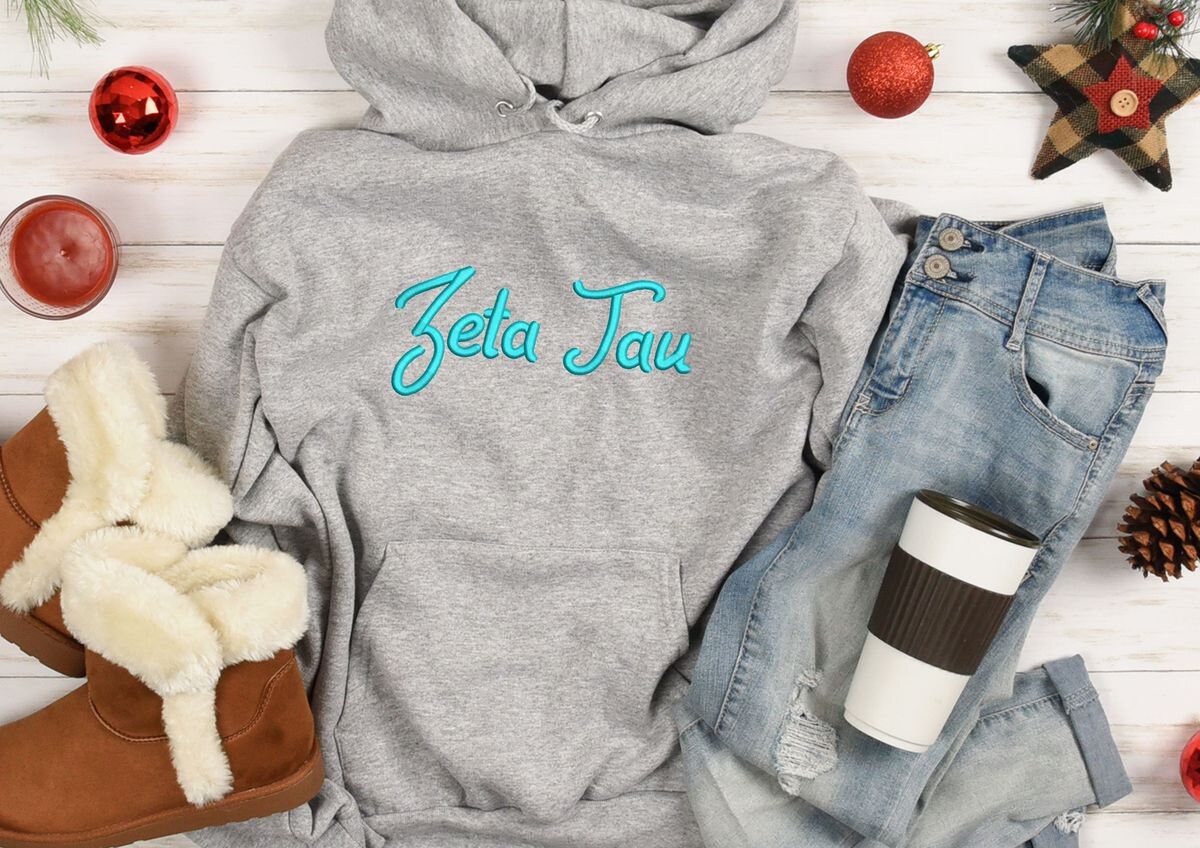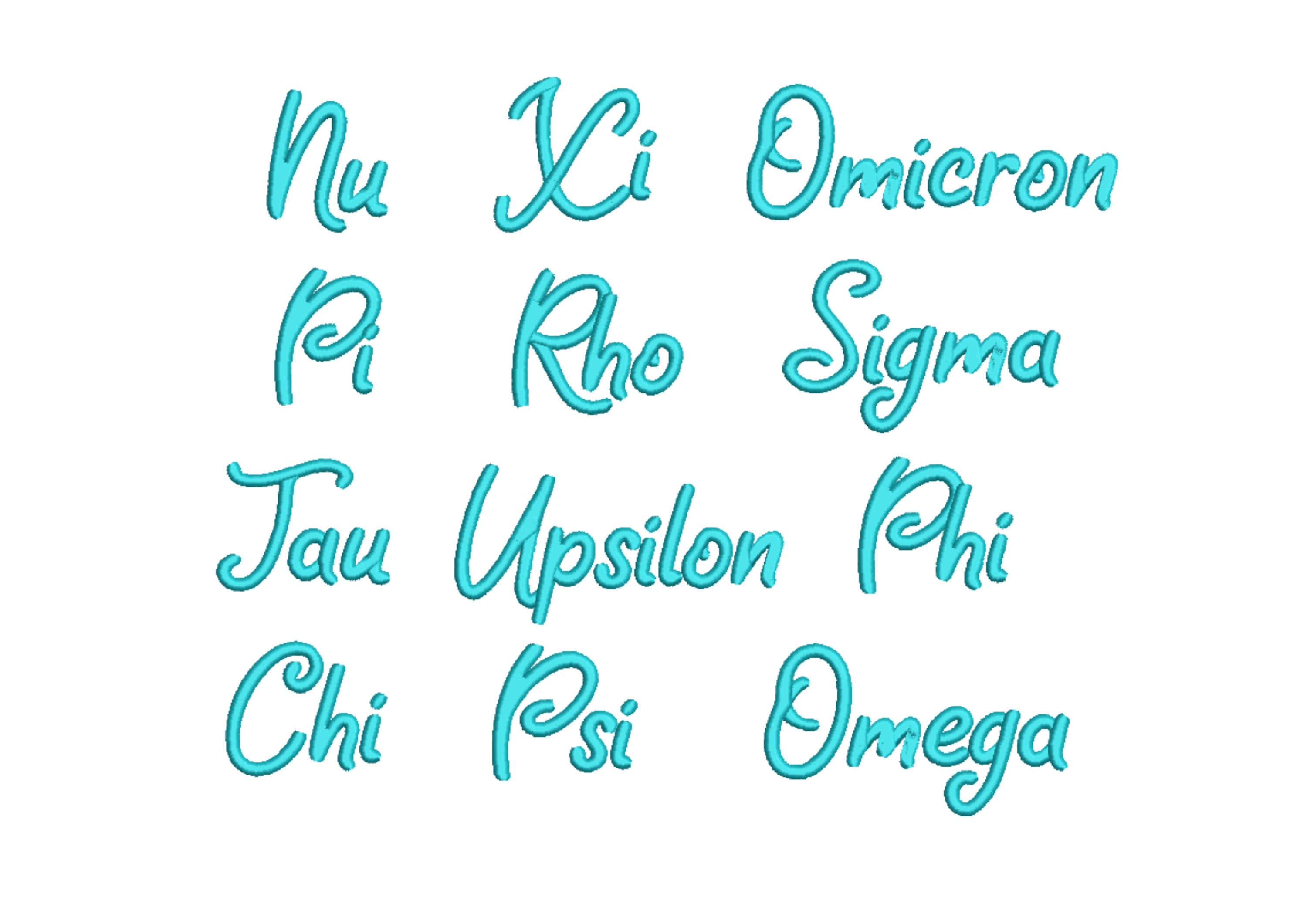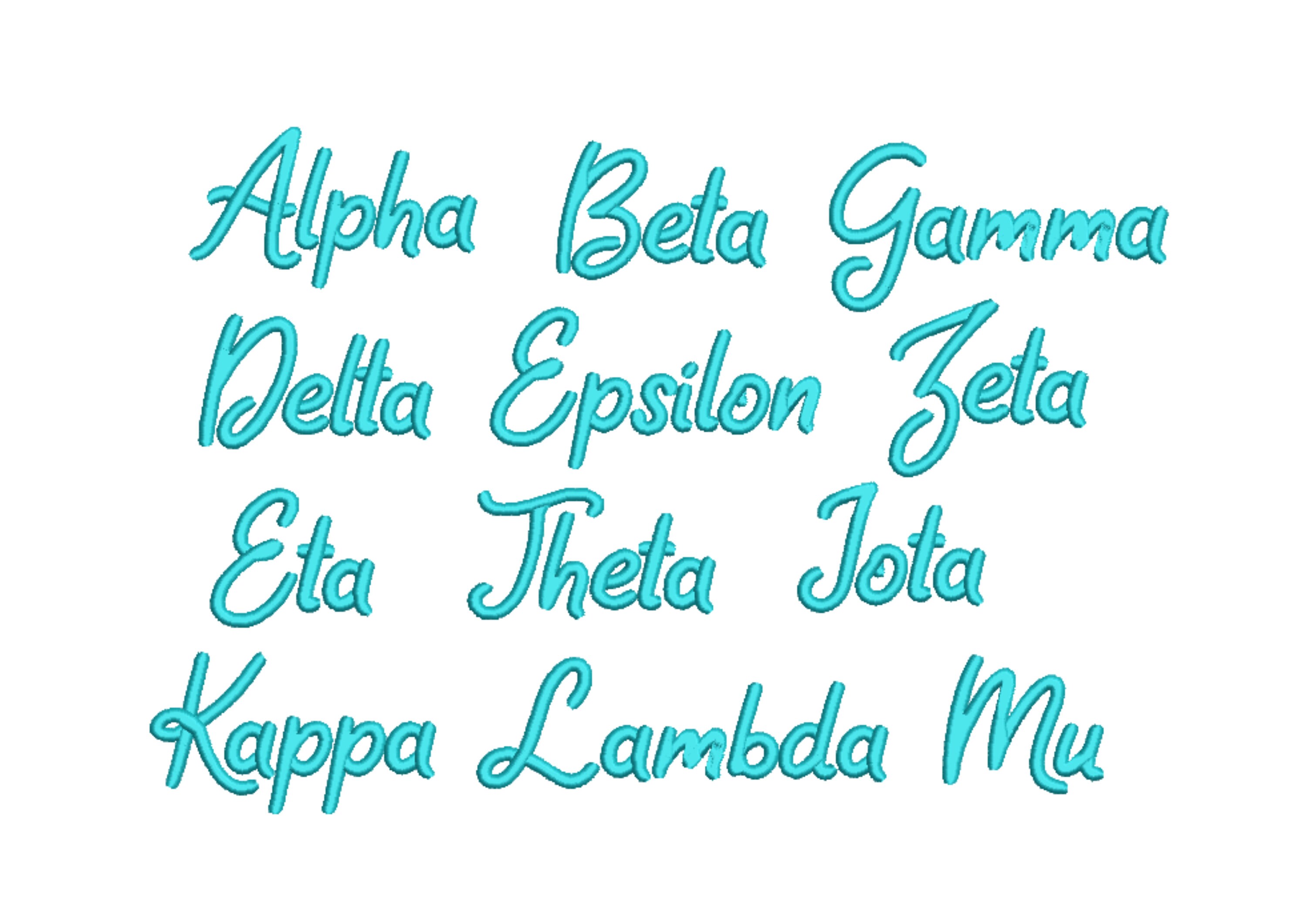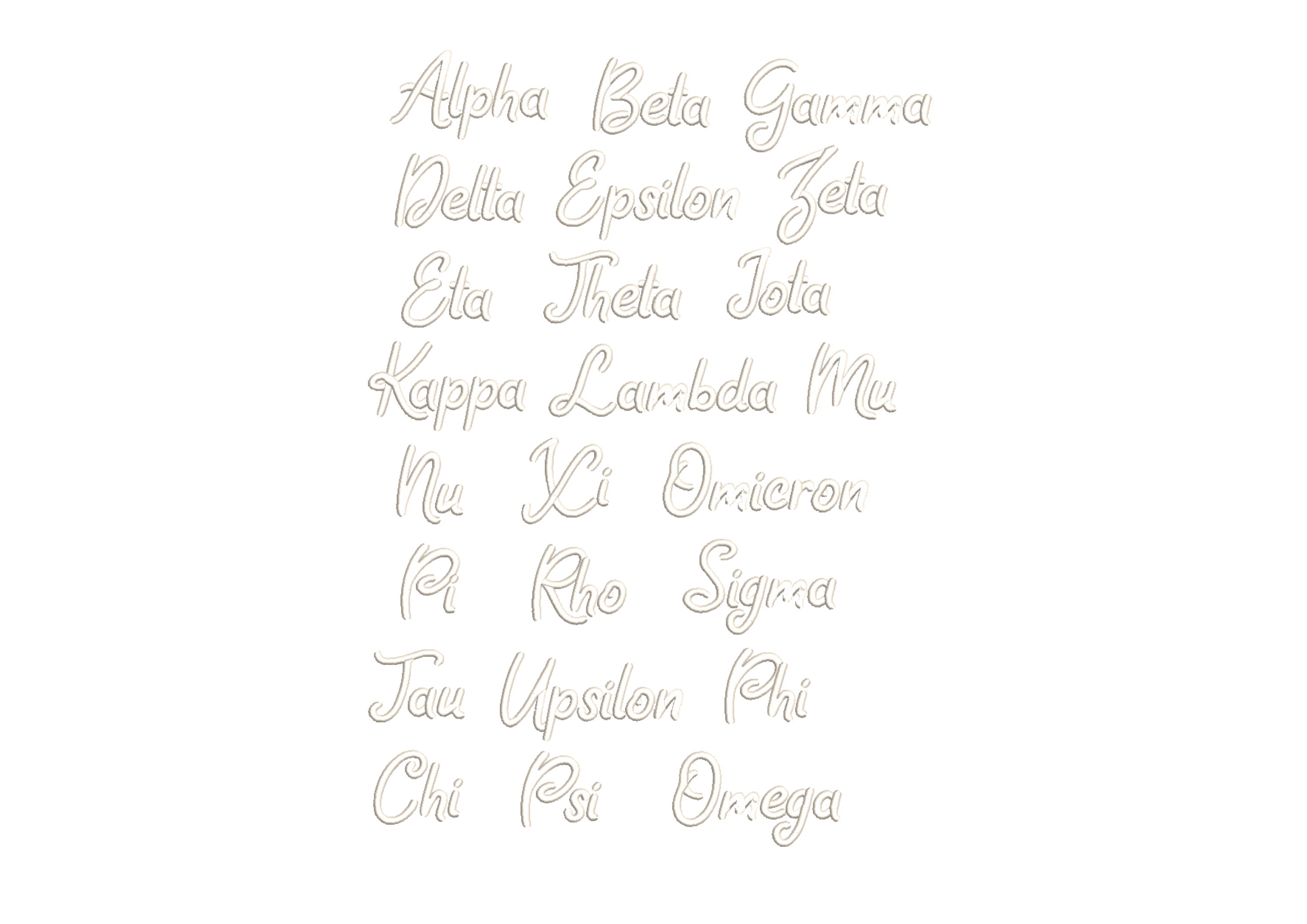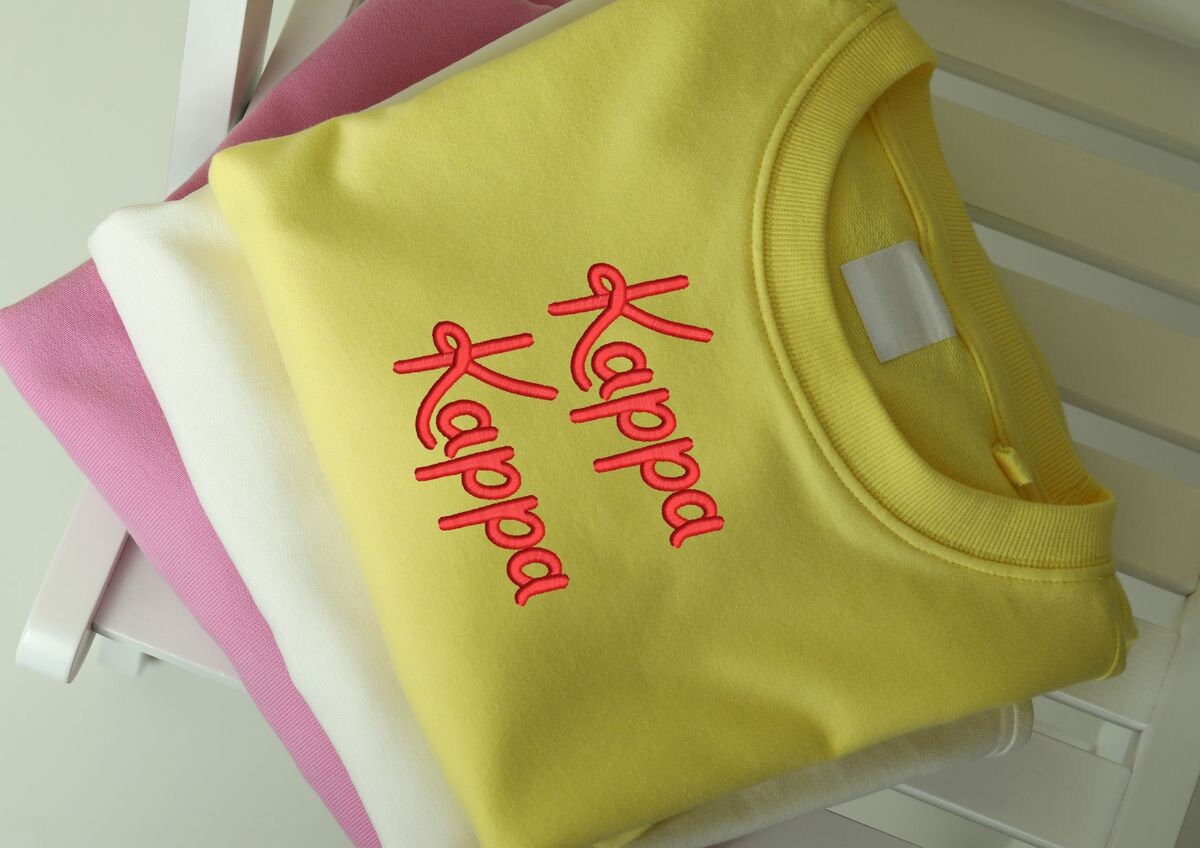
Set of 24 Greek letters written in words preset of sororities, alpha omega kappa words sororities satin stitch machine embroidery designs
Whole alphabet letters written in words: alpha, beta, gamma, delta, epsilon, zeta, eta, theta, iota, kappa, lambda, mu, nu, xi, omicron, pi1, rho, sigma, tau, upsilon, phi, chi, psi, omega.
great to make for shirts
stitched out perfect on a sweatshirt